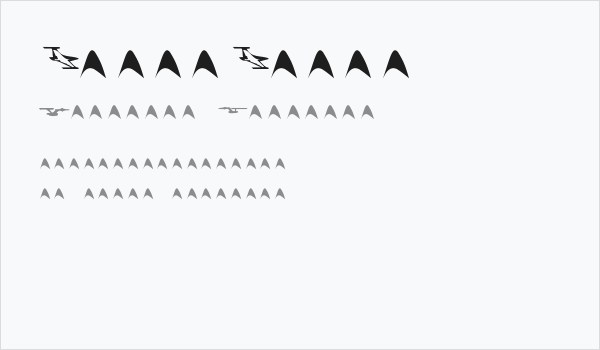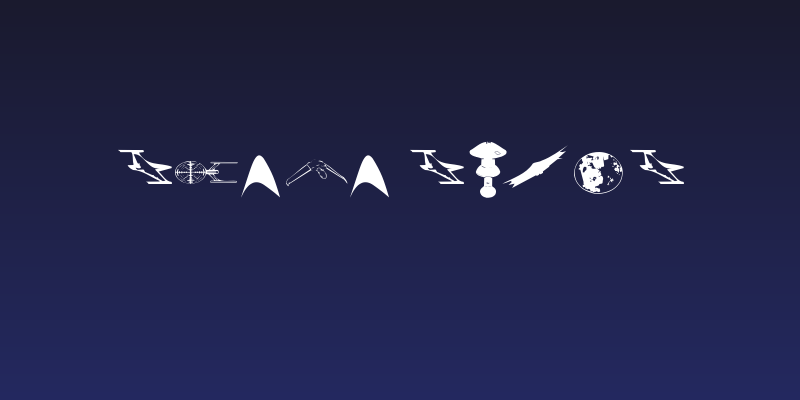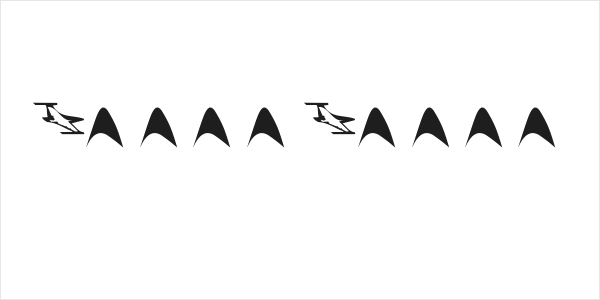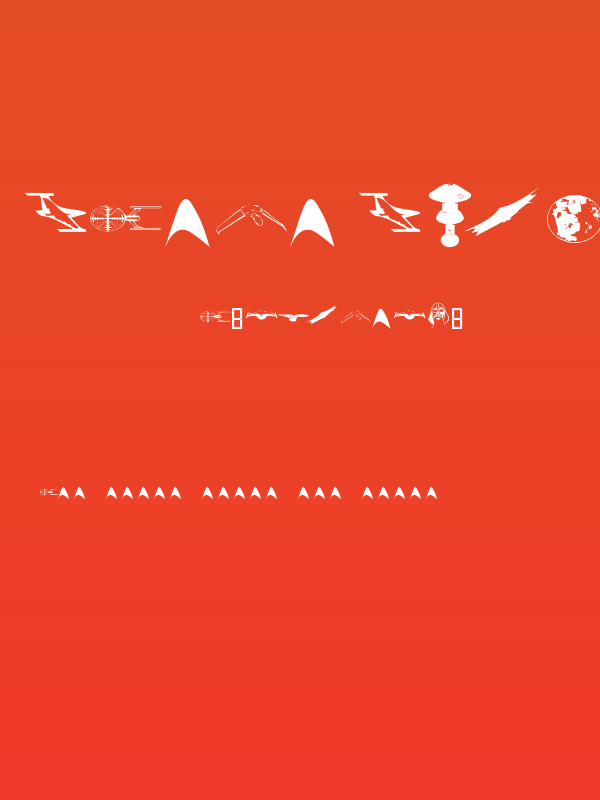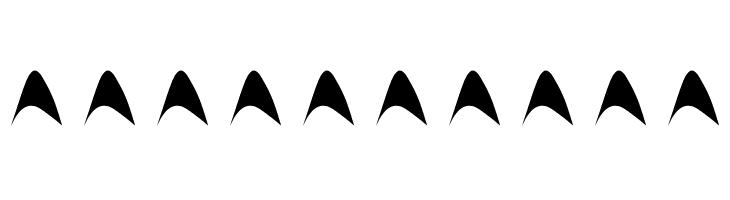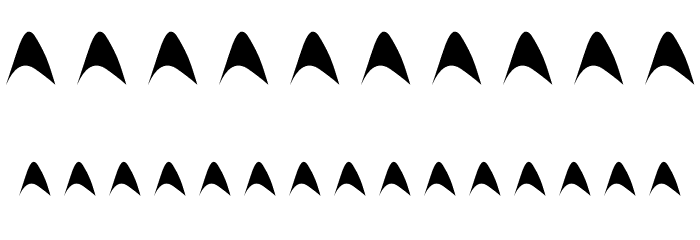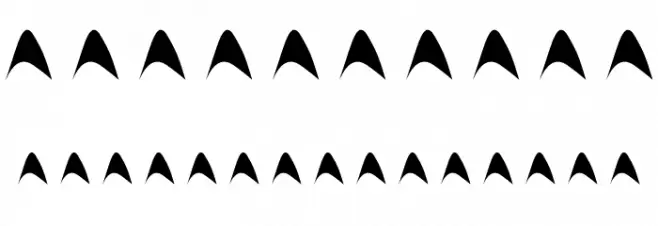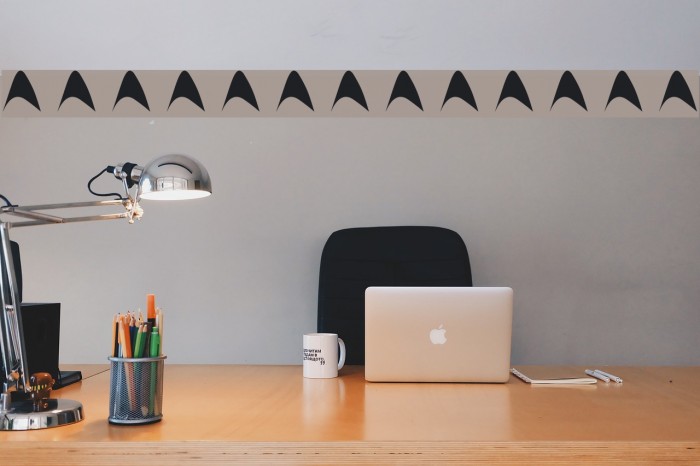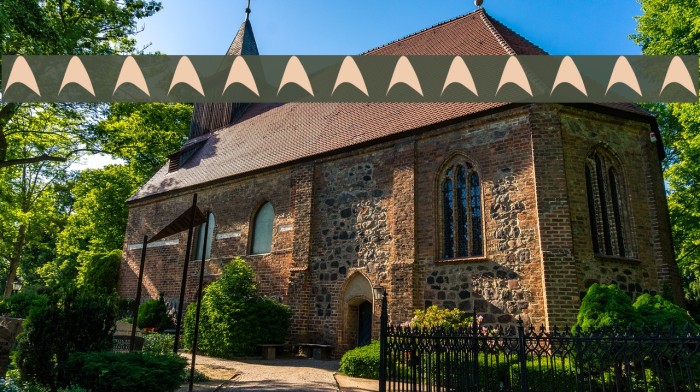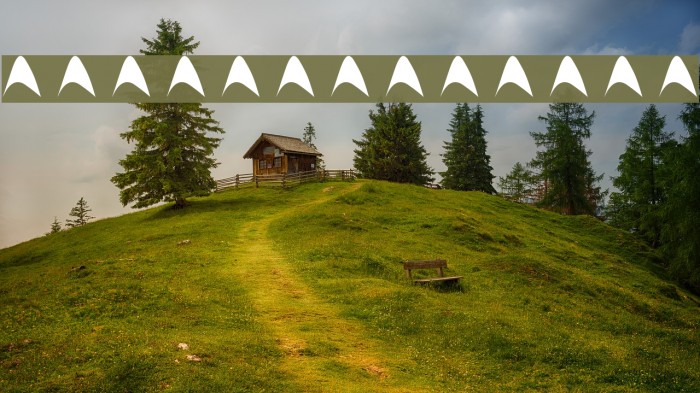
Star-Signs Font
Star-Signs Description
This image consists of repeated abstract, triangular shapes arranged in rows, resembling stylized chevrons or arrowheads. There are no recognizable alphanumeric characters or punctuation marks present.